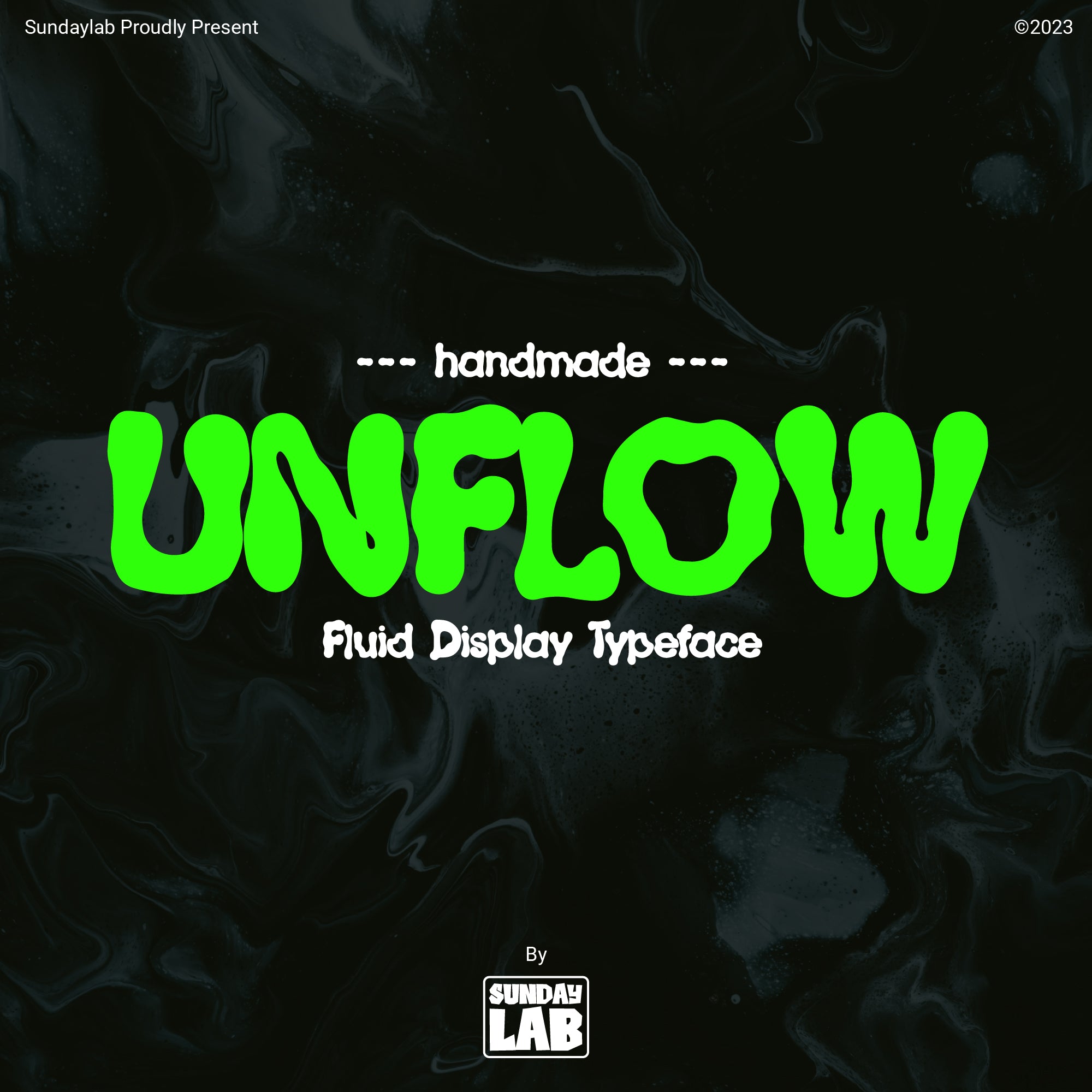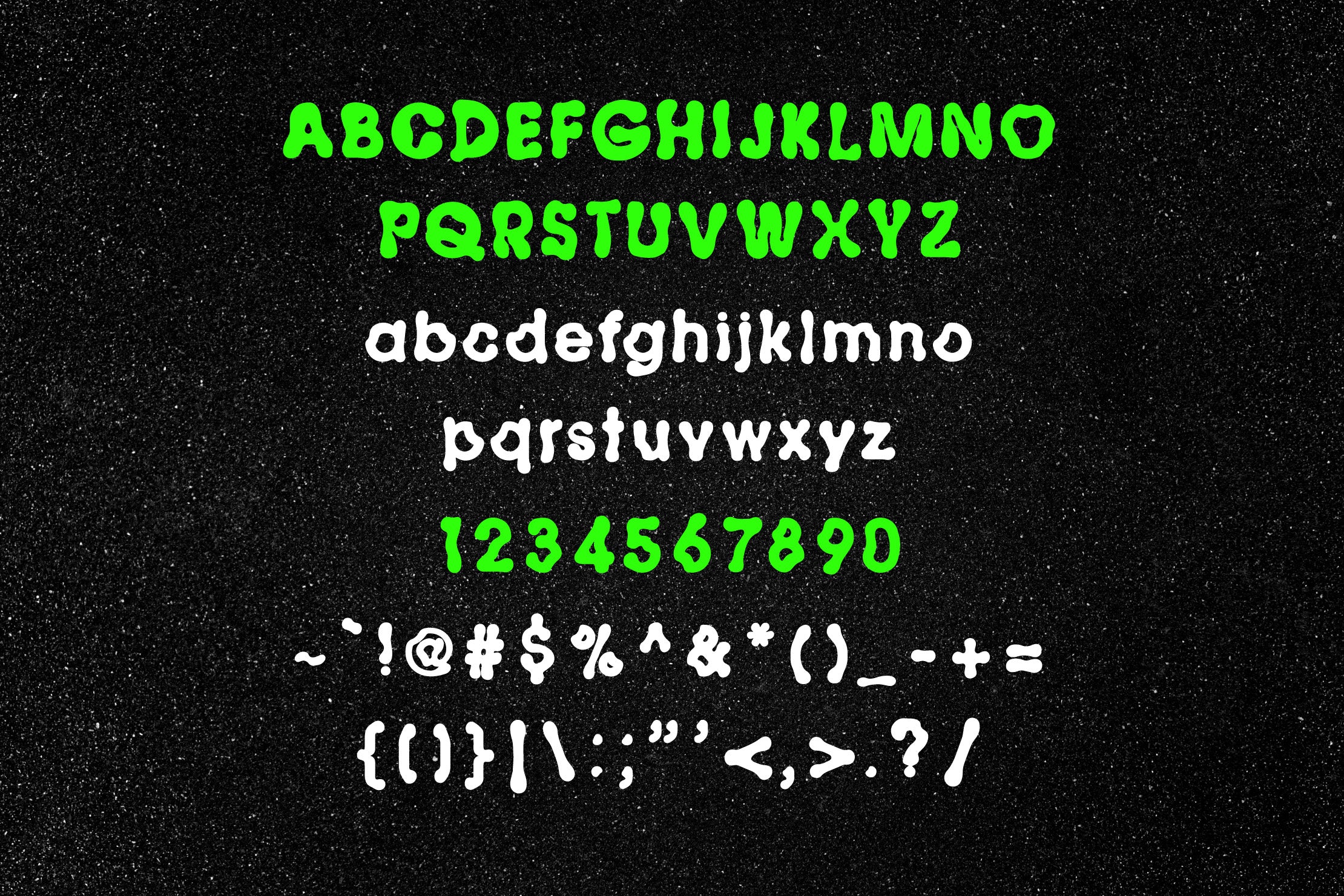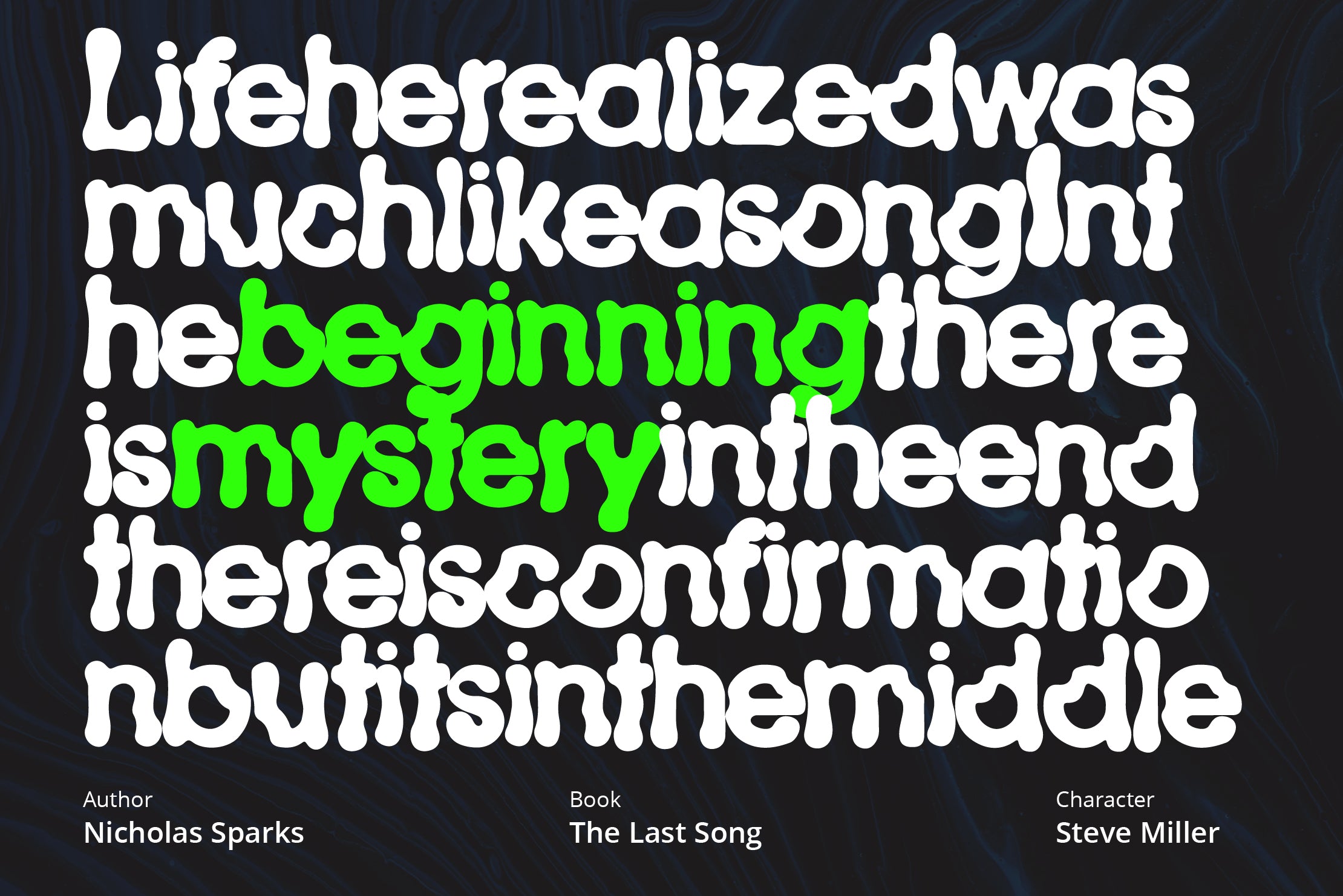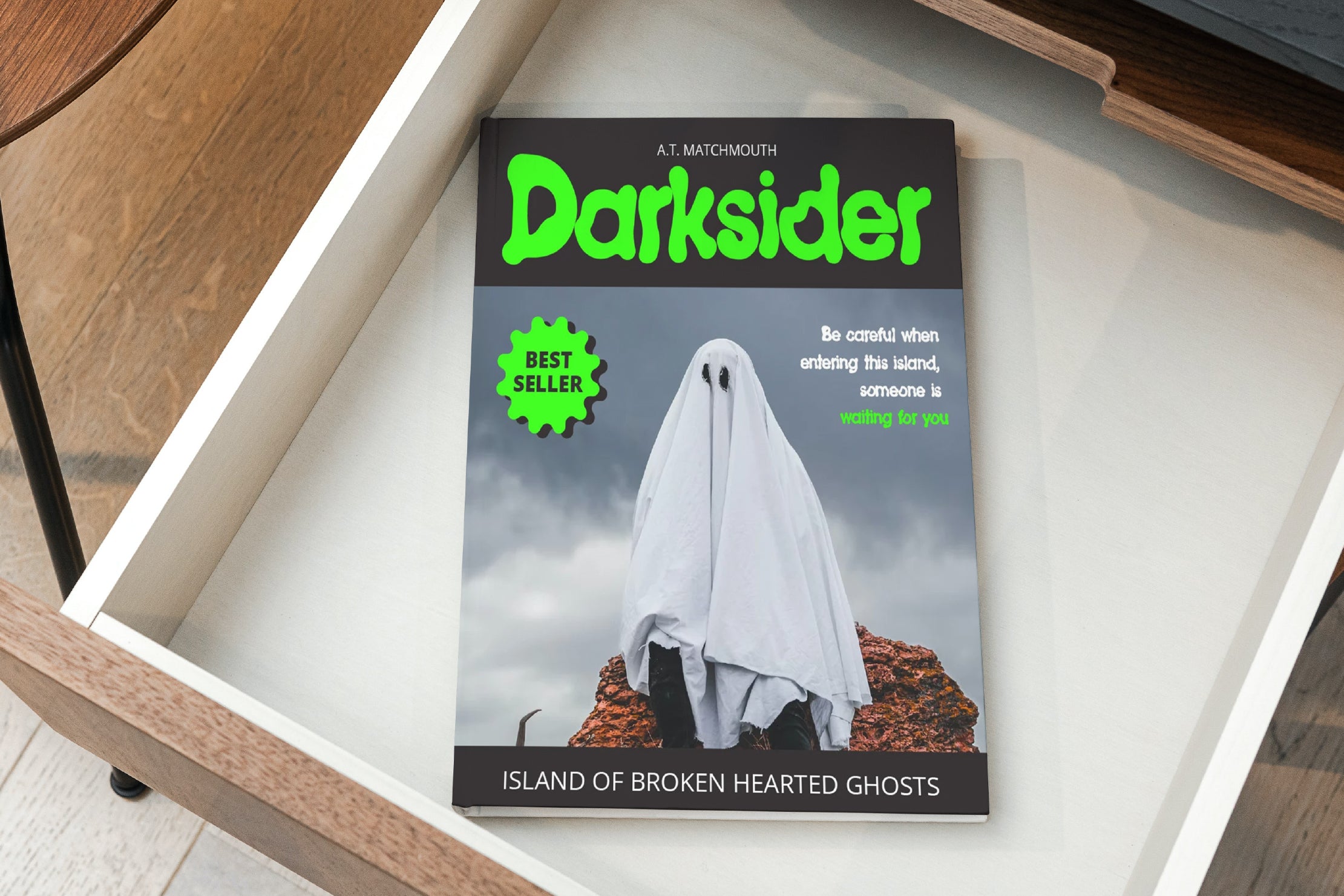
Unflow Typeface
Unflow is a playful fluid display typeface inspired by liquid shapes, organic forms, and handmade lettering.
Featuring soft curves, rounded terminals, irregular proportions, and a distinctive bubbly appearance, Unflow brings a bold and unconventional personality to any design.
Its fluid letterforms work especially well for expressive headlines, posters, editorial artwork, book covers, logos, packaging, album artwork, advertising, and experimental branding.
Designed to feel handmade rather than mechanically perfect, Unflow is ideal for creative projects that need a playful, nostalgic, organic, and slightly surreal typographic character.
Unflow Typeface is a playful display typeface characterized by fluid letterforms, soft curves, and a distinctive bubbly appearance. It includes both .otf and .ttf file formats, making it suitable for various creative projects.